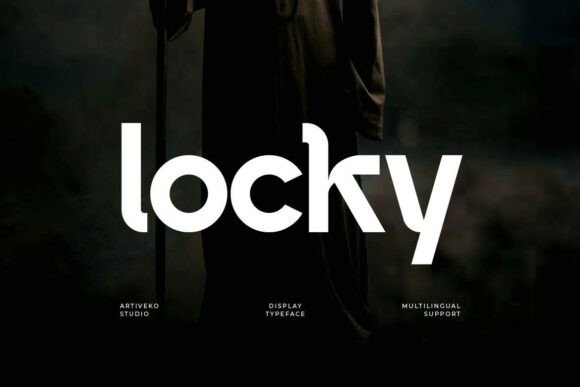
Locky: A Modern Sans Serif Font That Elevates Small Business Branding
Locky for Bakery Packaging and Brand Consistency
When I opened my small artisan bakery last year, I knew the quality of my sourdough and pastries would speak for themselves—but I also wanted my brand to feel as fresh and trustworthy as the products I was selling. I started with packaging design, and that’s when I discovered Locky, a modern semi-bold sans serif typeface that brought clarity and confidence to every box and label. Its clean lines and balanced proportions gave my bakery a polished, cohesive look that customers began to recognize right away.
Locky for Product Labels and Brand Recognition
Choosing the right font for product labels can be tricky, especially when you're trying to stand out on crowded shelves. Locky’s semi-bold weight made it easy to use for short phrases like “Honey Oat Loaf” or “Chocolate Croissant” without feeling too heavy or overwhelming. Because it’s a sans serif font, it read clearly on both printed boxes and digital product photos. The more I used Locky across my packaging, social media, and even business cards, the more customers began to associate that strong, clean typography with quality and consistency.
Locky for Café Menus and Print Design
As my bakery grew, I added a small café-style menu for coffee and seasonal specials. I wanted the menu to feel approachable yet professional. Locky worked perfectly for headings like “Espresso” or “Matcha Latte,” and when paired with a simpler sans serif font for body text, it created a visual hierarchy that guided the eye naturally. The font’s medium weight gave it presence without being too bold, making it ideal for printed menus and chalkboard signs alike.
Readability Tips for Locky on Printed Materials
If you're using Locky for printed materials like menus or packaging, it's important to test the font size and spacing. Because it’s a display font, Locky works best for short phrases, headlines, and titles. I made sure to keep my bakery labels simple and avoided using too many competing fonts. For small print applications like ingredient tags or thank-you stickers, I stuck to 10pt or larger to maintain legibility.
Locky for Social Media Graphics and Online Branding
As a small business owner, I also needed to maintain a consistent look across my Instagram and Facebook posts. Locky quickly became my go-to font for quote graphics, product announcements, and promotional banners. Since it’s a modern sans serif font, it looked sharp on both desktop and mobile screens. I found that using Locky for headlines and key phrases helped my content feel more branded and intentional, even when I was using stock templates or Canva designs.
Locky for Brand Identity and Digital Marketing
Typography plays a bigger role in brand perception than many small business owners realize. When I switched to Locky across my website, email newsletters, and Instagram stories, I noticed a subtle but powerful shift in how customers engaged with my brand. The font’s confident weight and clean structure gave my visuals a more premium feel, which helped build trust and recognition. It was especially effective for headlines and social media captions overlaid on images.
Locky for Logo Design and Business Cards
When I redesigned my logo, I wanted something that felt modern but not trendy. I tested several fonts, but Locky stood out for its versatility and strong presence. I used it for the main wordmark and paired it with a lighter sans serif for the tagline. The result was a logo that felt balanced and professional—perfect for a small business trying to establish credibility. I also used Locky for my business cards, and the font’s refined structure made the cards feel more like a design piece than just a contact tool.
Font Pairing Ideas with Locky
One of the best things about Locky is how well it pairs with other fonts. Since it’s a semi-bold sans serif, I often combined it with a clean, minimalist sans serif like Open Sans or Lato for body text. For more decorative elements, like social media quotes or packaging accents, I sometimes used a script font or a soft handwritten style to create contrast. This helped maintain a modern yet approachable feel across all my materials.
Locky for Stickers, Tags, and Handmade Product Branding
If you sell handmade products or run a boutique, Locky is a great choice for tags, stickers, and swing tags. I used it for custom thank-you stickers and product swing tags, and the font’s clarity made it easy to read even at small sizes. Because it’s a modern semi-bold sans serif typeface, it added a touch of sophistication without feeling too formal. Whether you're branding candles, skincare products, or clothing tags, Locky brings a clean, contemporary edge that elevates your packaging and product presentation.